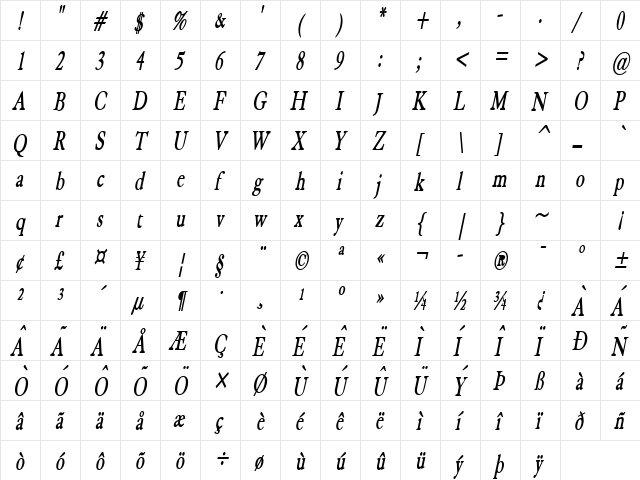
Elephant Thin BoldItalic
Design Context for Elephant Thin Typeface
Elephant Thin offers clean, dependable letterforms without strong stylistic allegiance, making it a practical choice for designers who need flexibility. The slanted form adds forward momentum and visual energy. Its bold stroke weight gives it real presence on the page.
Pro Tip: Use Elephant Thin for emphasis, pull quotes, and subheadings where its slanted energy can add rhythm to the layout.